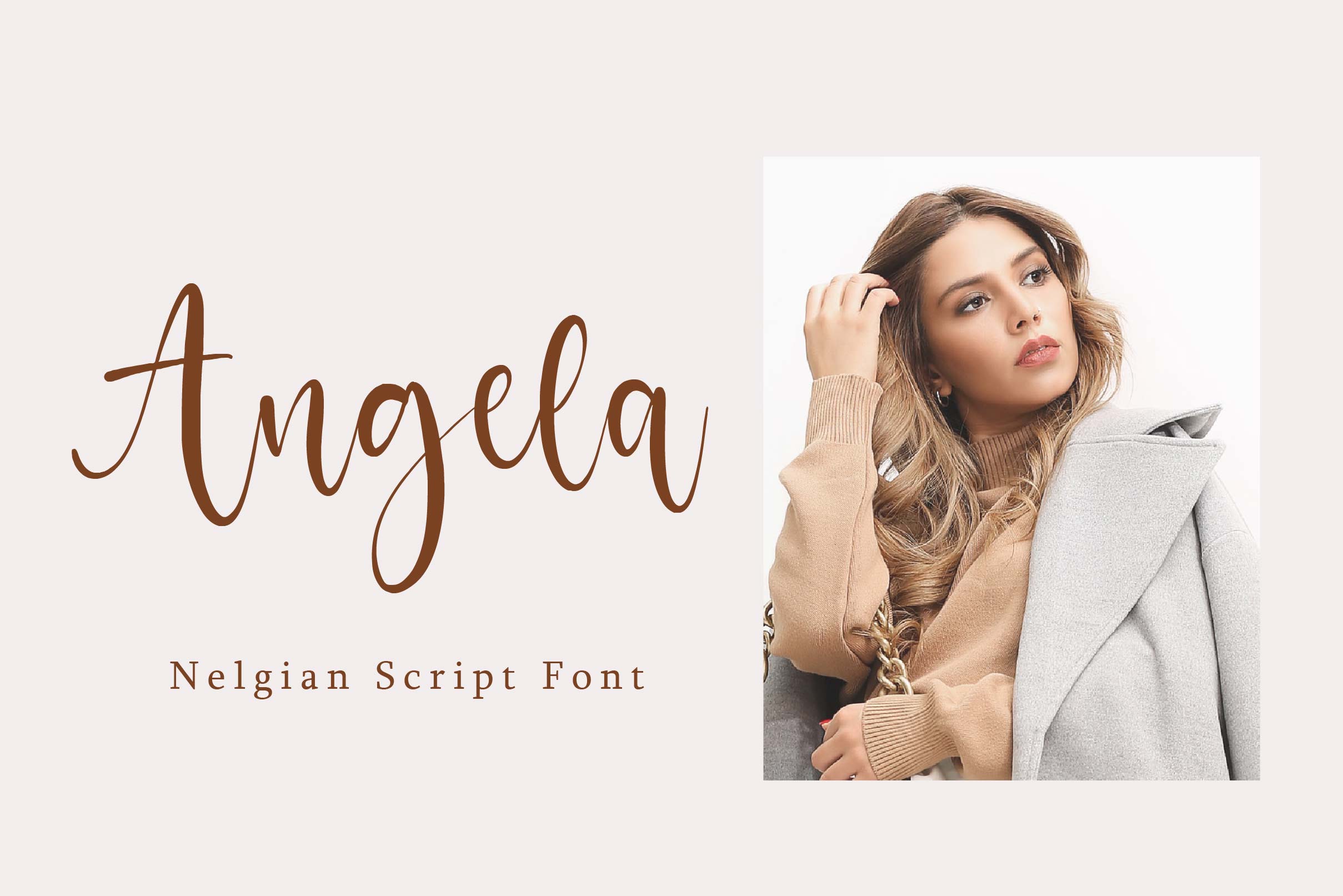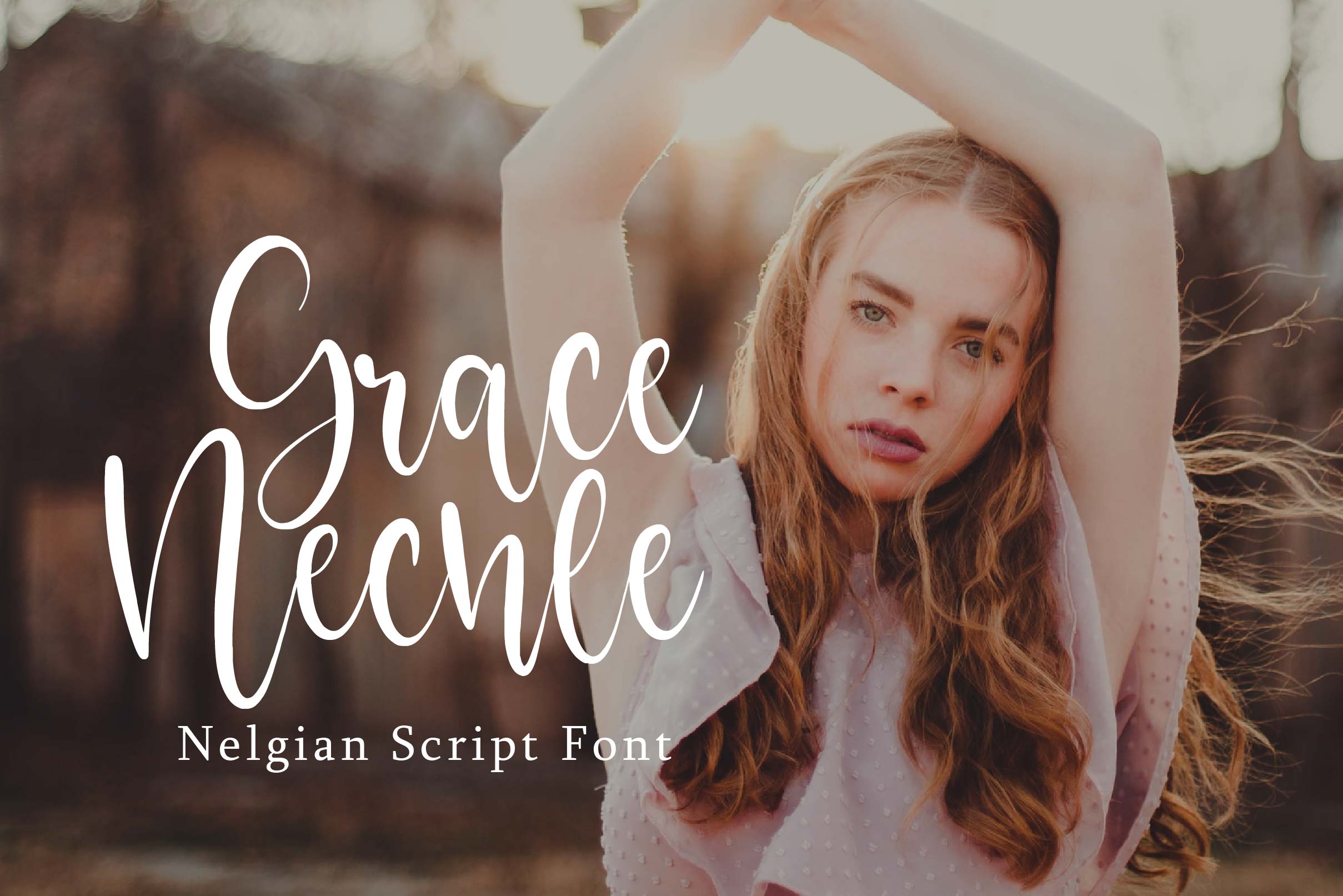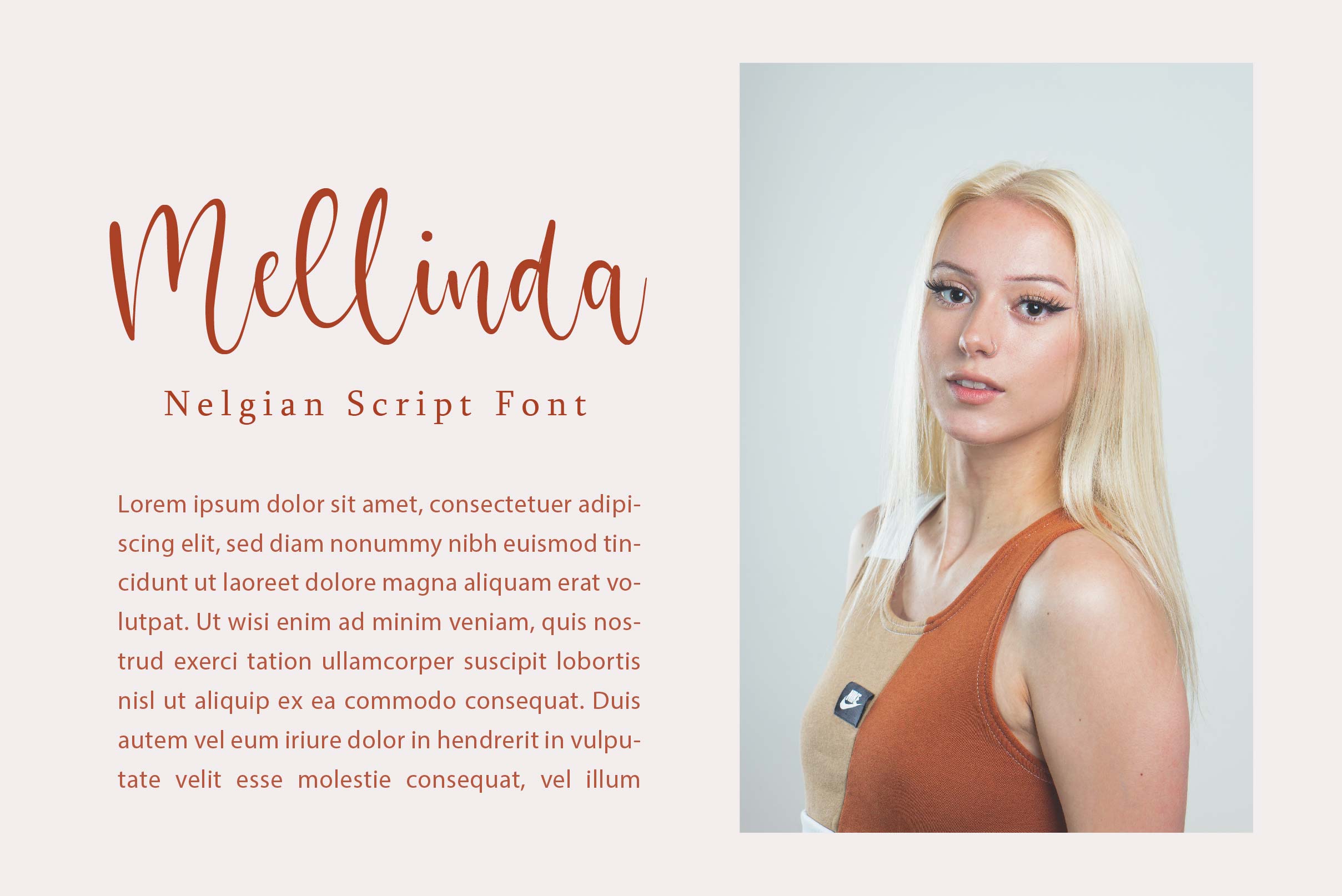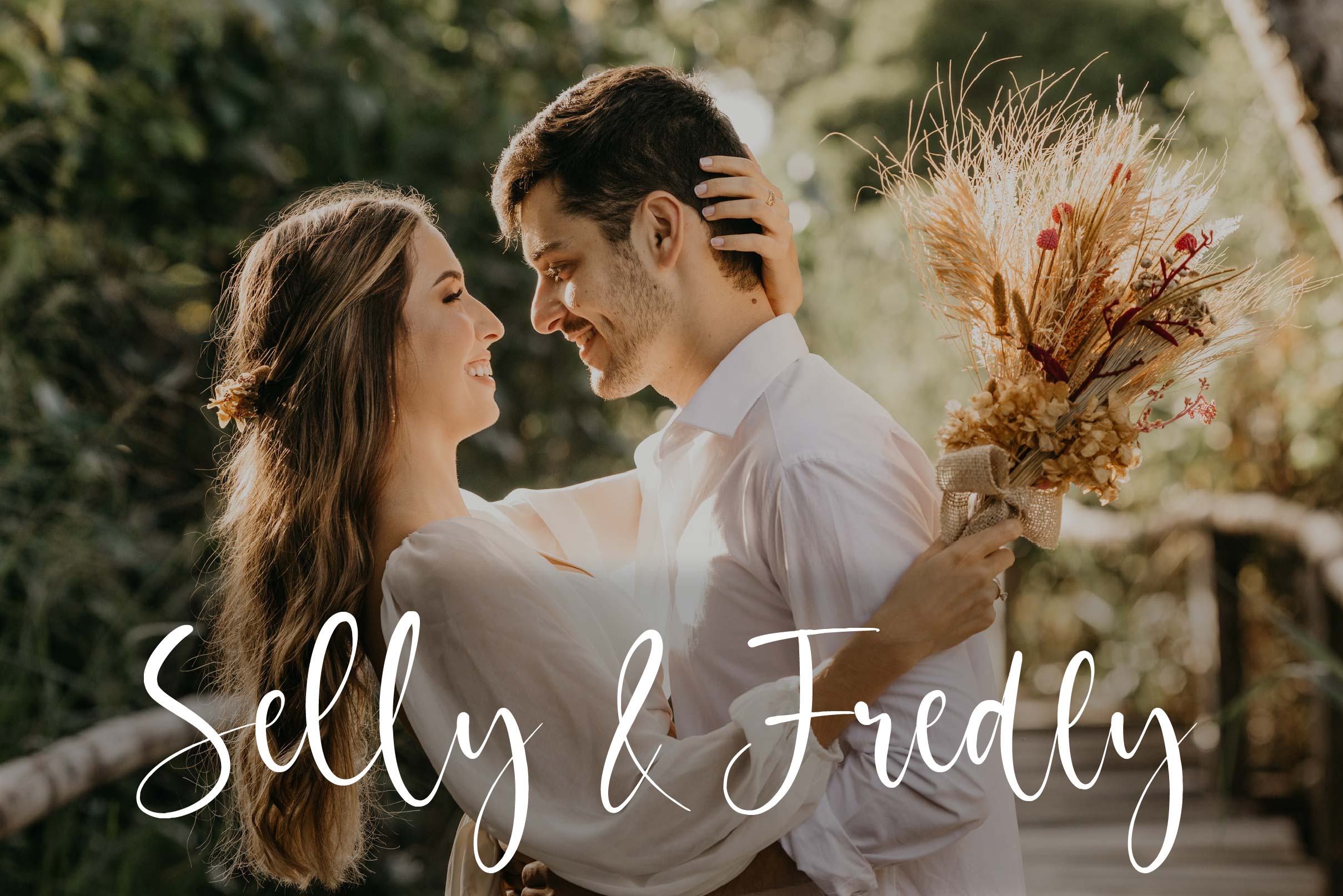
Nelgian Font
Nelgian Script Font is a delicate, elegant and flowing handwritten font. It has beautiful and well balanced characters and as a result, it matches a wide pool of designs. Add it confidently to your projects, and you will love the results.
– Uppercase, Lowercase, Numeral & Punctuation
– Alternate Letters, Ligature & Swash/Tail